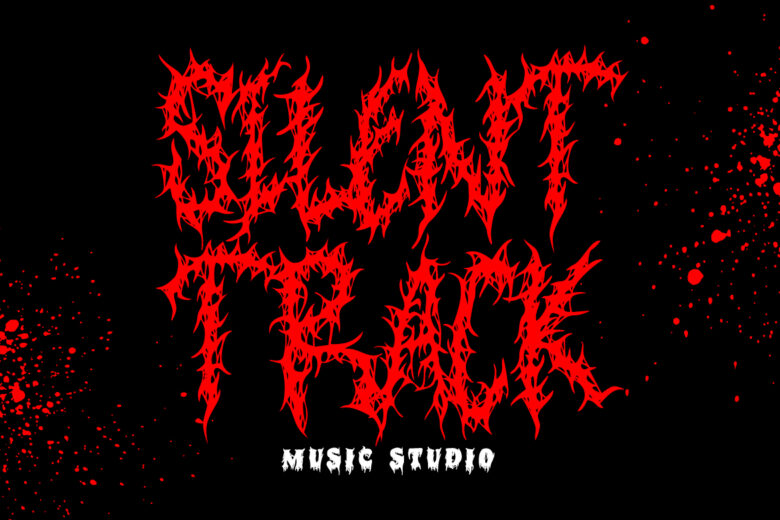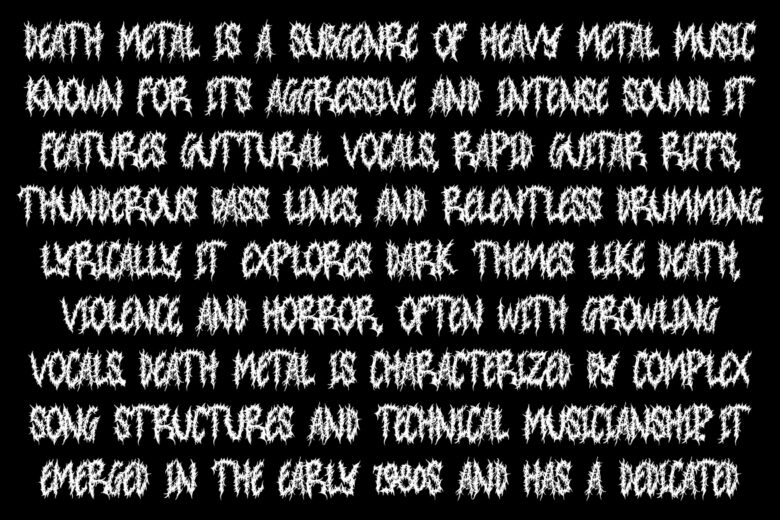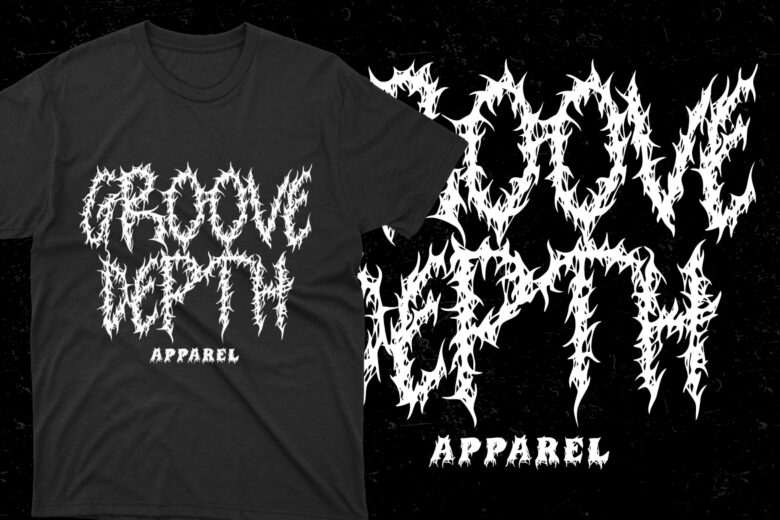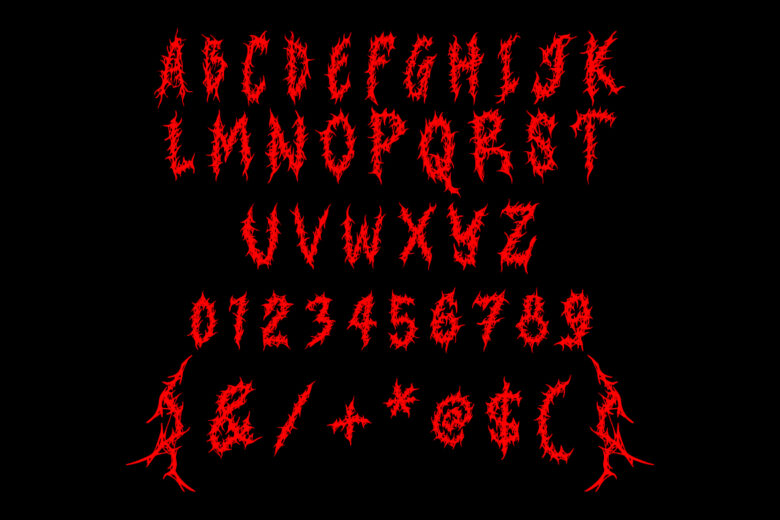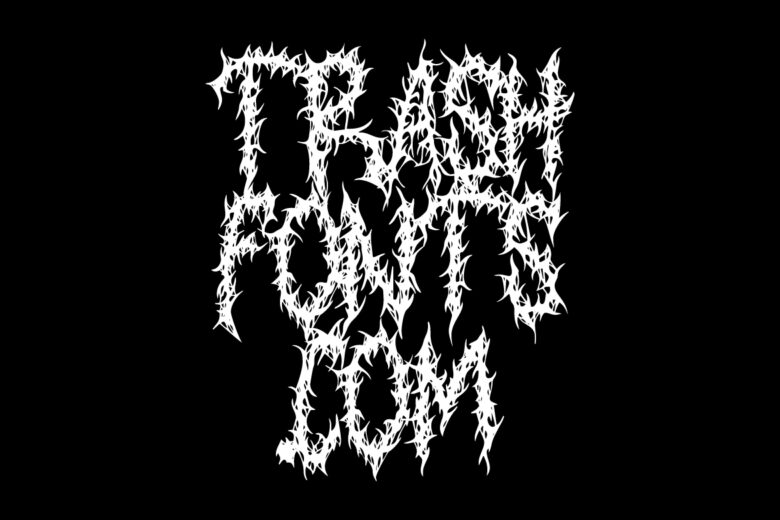
Introducing Trash Cauldron – Death Metal Font: a design force for those seeking intensity and mystery. Crafted with sharp, contoured letterforms, this font is perfect for merchandise, logos, posters, and beyond. Ignite your creativity with the darkness of death metal, leaving an impression that cannot be ignored. Choose Trash Cauldron – Death Metal Font for unmatched impact.
- Features: Uppercase, Lowercase, Numeral, Simple Punctuation & Multilingual.